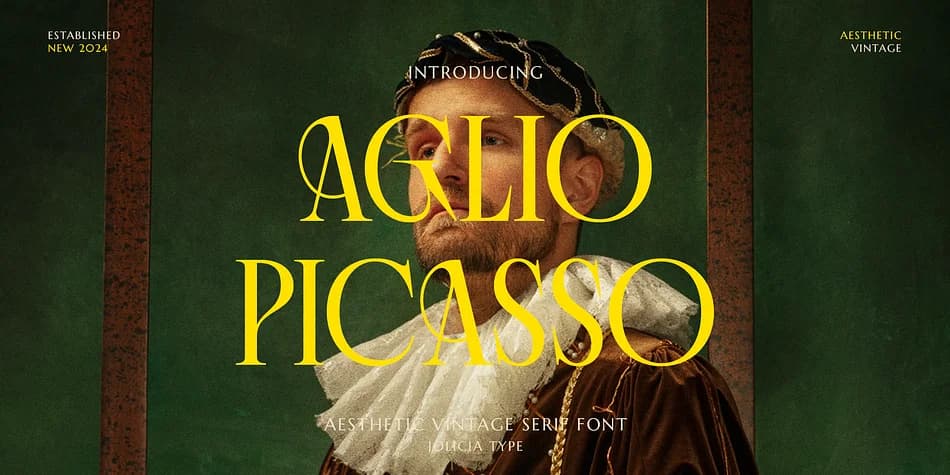
Vintage charm with an artistic edge. Aglio Picasso by Jolicia Type merges classic serif elegance with contemporary expressive character, creating something that feels both timeless and distinctly modern.
The font excels for projects where visual refinement signals quality and thoughtful design. Wedding invitation suites benefit immediately from its crafted sophistication, capturing the spirit of letterpress and hand-lettered traditions in every curve. Boutique skincare and wellness packaging gains genuine premium presence when paired with these expressive letterforms. Vintage-inspired cocktail and wine menus for upscale restaurants showcase the font's personality beautifully, while Etsy product labels and packaging for artisan goods, handmade ceramics, artisanal home dΓ©cor, and craft supplies all gain character and polish through its distinctive forms. The font maintains excellent legibility across sizes, reading clearly in both print applications and digital layouts, proving that decorative doesn't mean difficult to read or use in real projects.
Pair Aglio Picasso with a clean, minimal sans-serif for body copy or longer passages. This contrast keeps pages readable and professional while allowing the decorative serif to carry design impact and brand personality. The sans-serif handles the practical work of communication quietly, letting the serif be the visual hero. Grab Aglio Picasso from Creative Fabrica and bring this refined vintage character into your creative toolkit.
Aglio Picasso Font is a decorative font that shines as a display or heading face. Pair it with a clean sans-serif or serif font for body text β the contrast creates a clear hierarchy while the two styles stay balanced and easy to read.